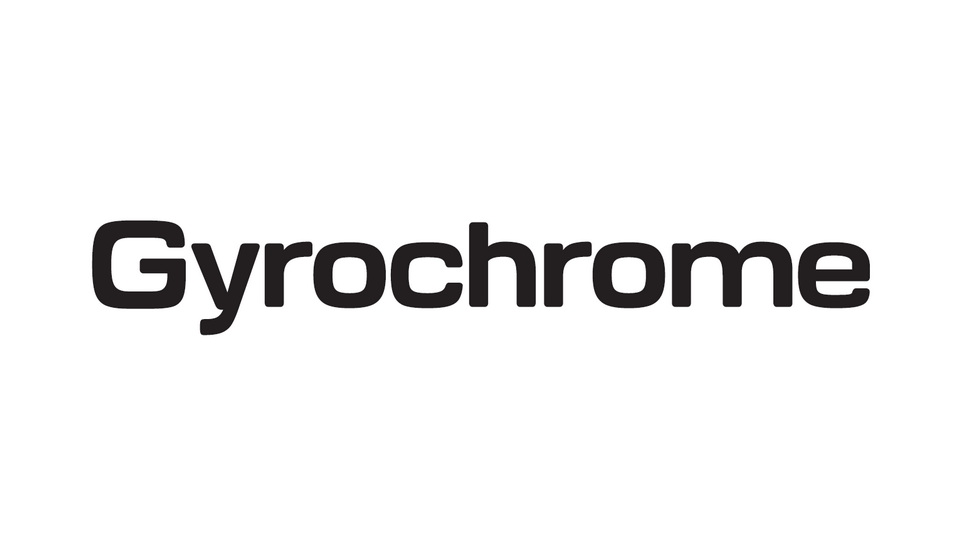
Download Gyrochrome font a rounded, geometric sans-serif variable typeface inspired by Vernon Adams’ Michroma. Its clean, modern lines and rounded shapes create a friendly, approachable aesthetic, while its geometric precision ensures a structured and contemporary feel.